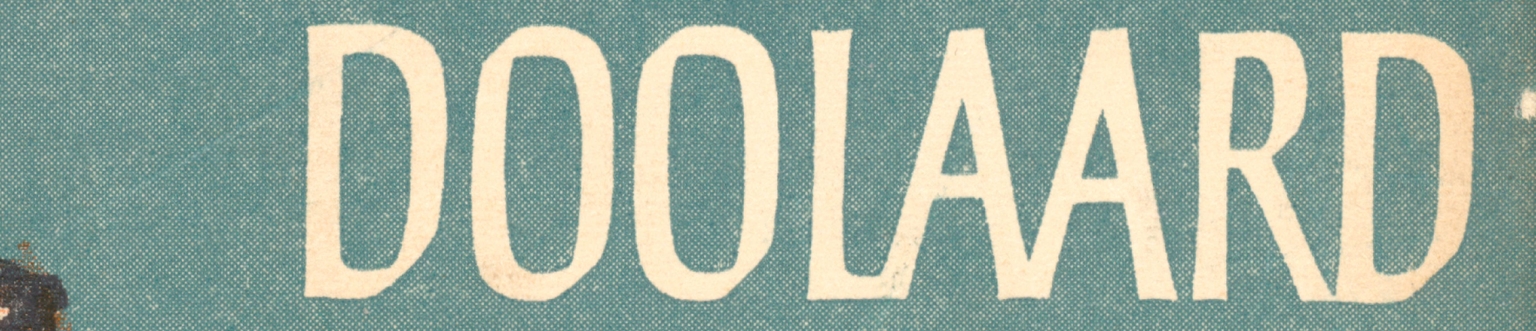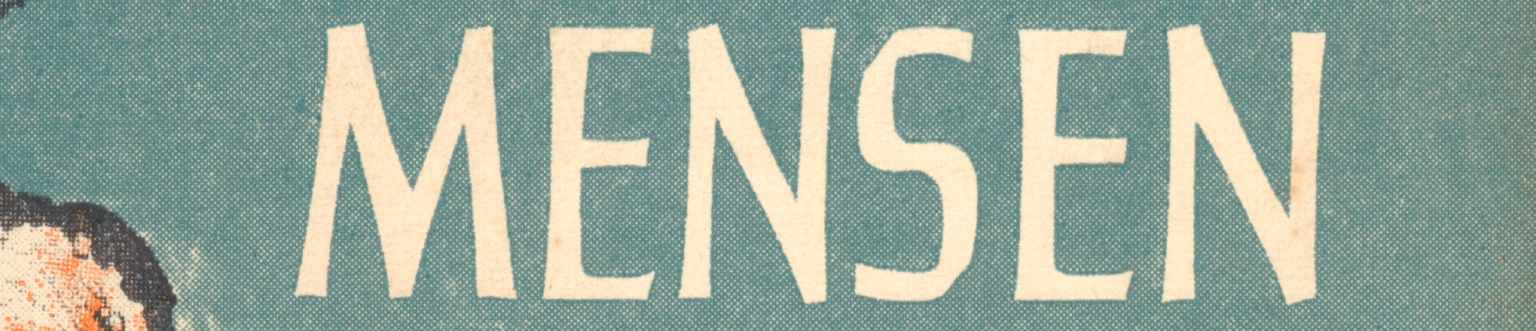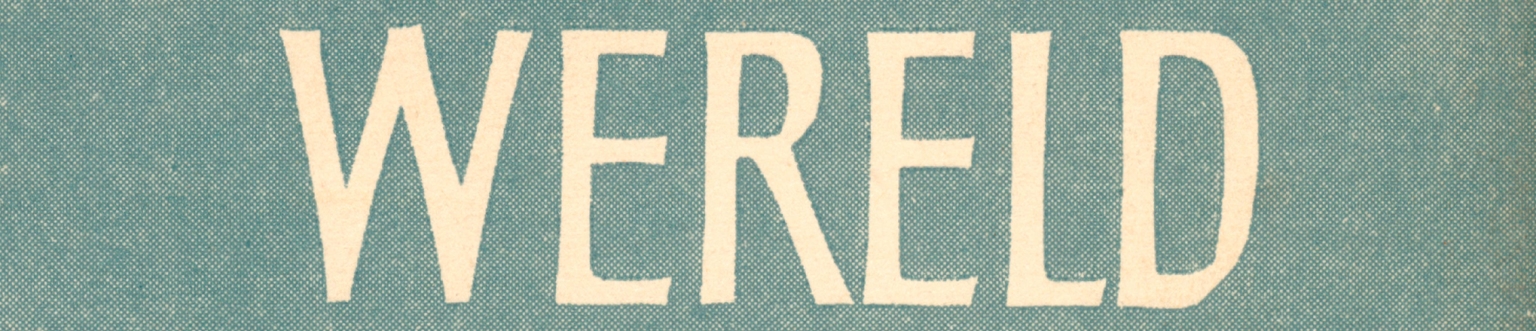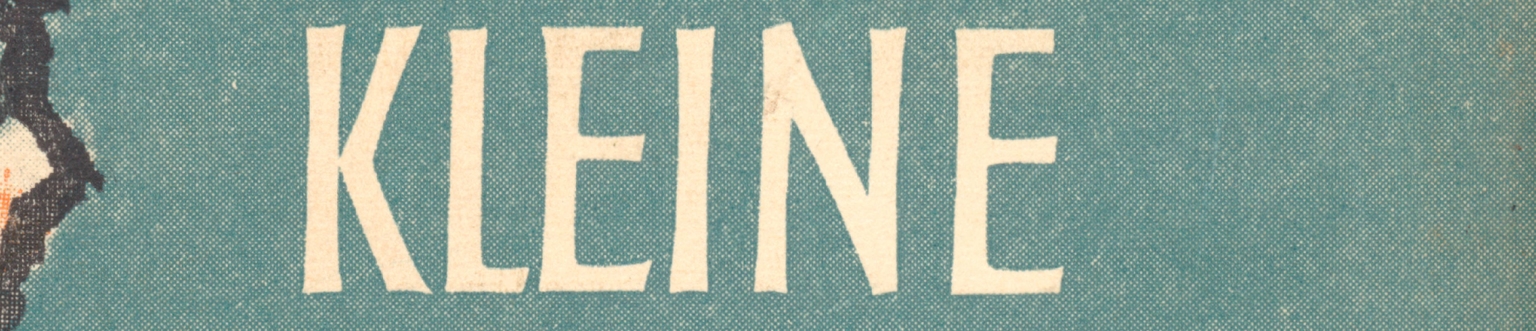
Minibieb
Minibieb is a compressed, calligraphic typeface designed by Ramiro Espinoza and inspired by a lettering work by painter and designer Theo Kurpershoek for the dust jacket of the 1961 Querido edition of Kleine Mensen in de Grote Wereld by A. den Doolaard. The original lettering combines narrow proportions with an informal, hand-drawn appearance typical of Dutch book cover design of the period.
Espinoza analyzed the proportions, contours, and construction of Kurpershoek’s letterforms and translated them into a contemporary digital typeface. Rather than reproducing the original lettering directly, he refined inconsistencies, regularized spacing, and expanded the character set for present-day typographic use while preserving the compact structure and informal quality of the source.
With its condensed proportions and approachable tone, Minibieb is suitable for logos, book covers, posters, packaging, signage, websites, and cultural projects that benefit from a compact and expressive typographic voice. The typeface offers a practical way to connect the character of historical lettering design with contemporary graphic applications.